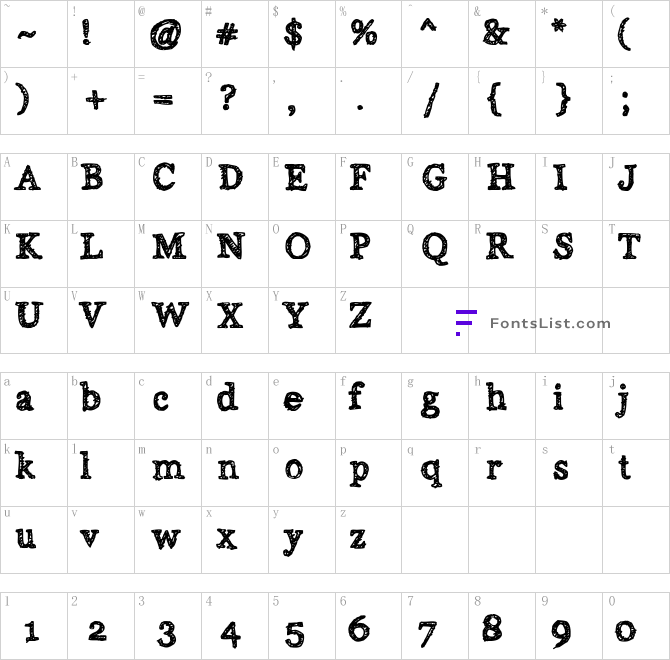
- Font Name:Alabama
Alabama.ttf is a very beautiful artistic font, Alabama.ttf is widely used in the design and printing of various books and pictures,Alabama.ttf has a strong visual impact,Alabama.ttf is a commonly used font in newspapers, magazines and books, and is used in posters, e-commerce Poster design, store design, logo design, font design and other fields.Alabama.